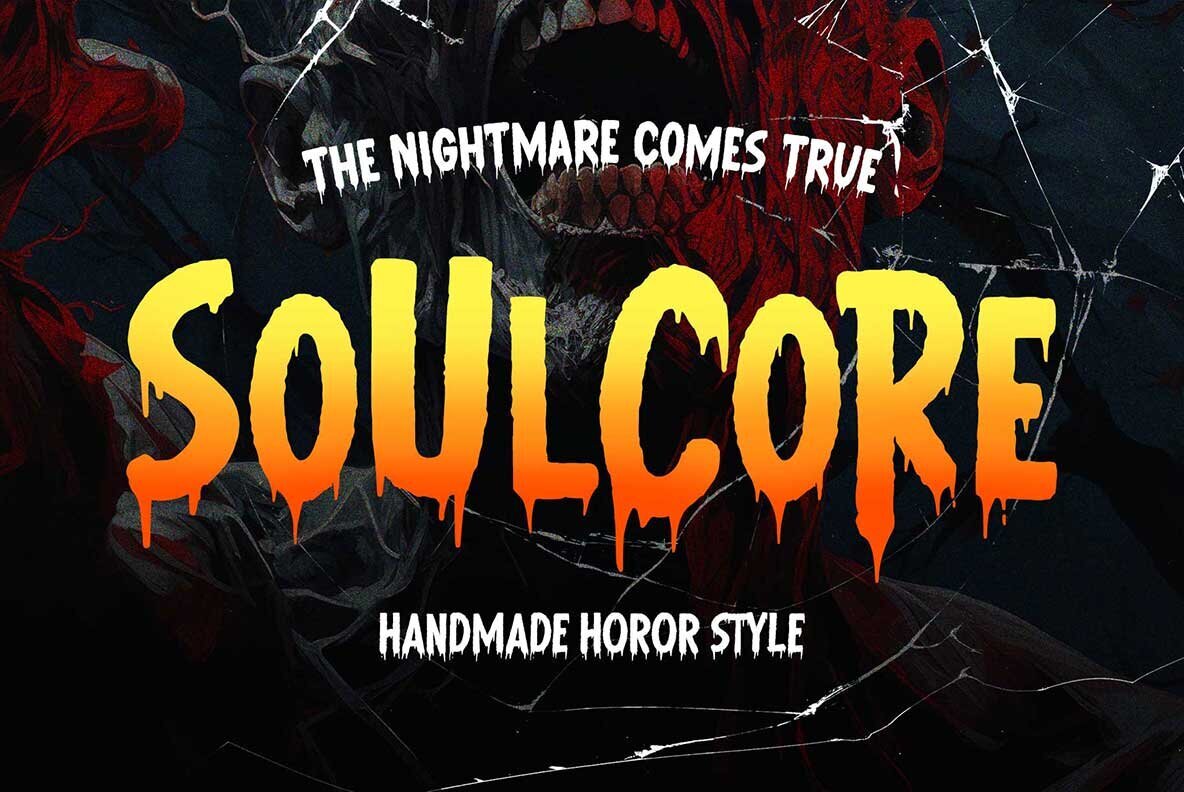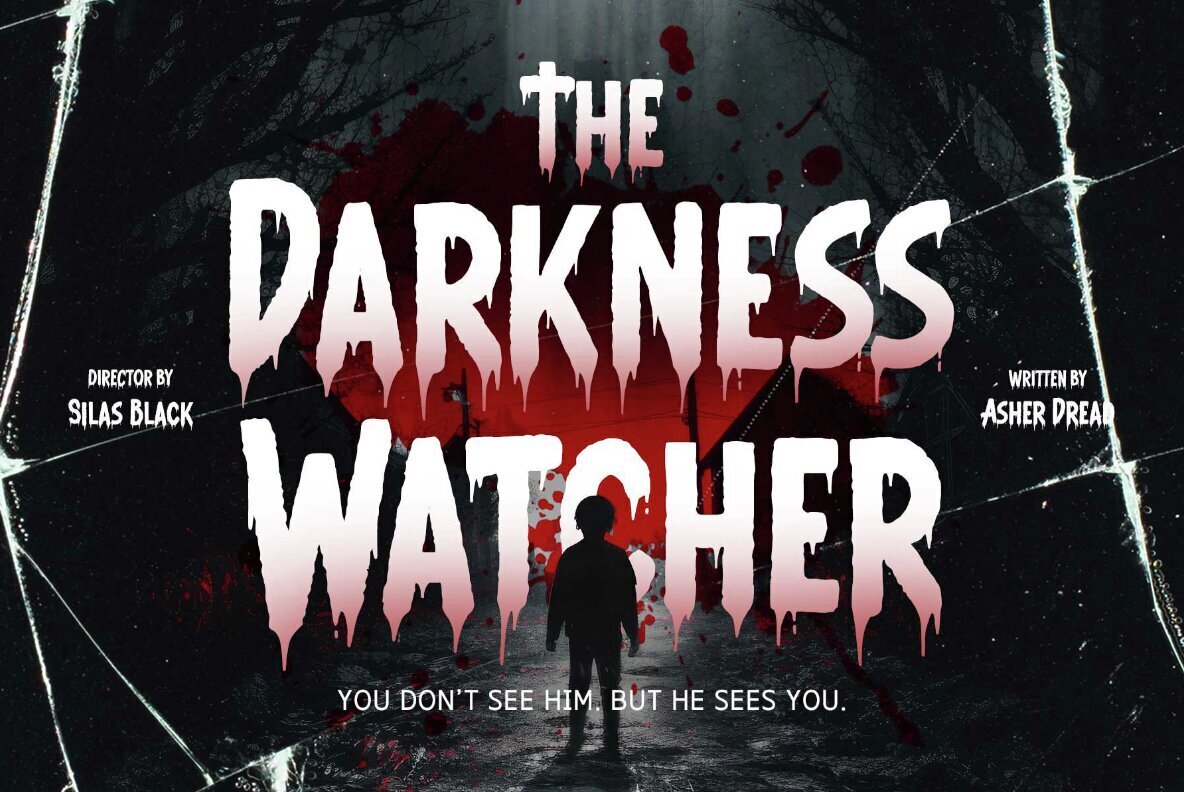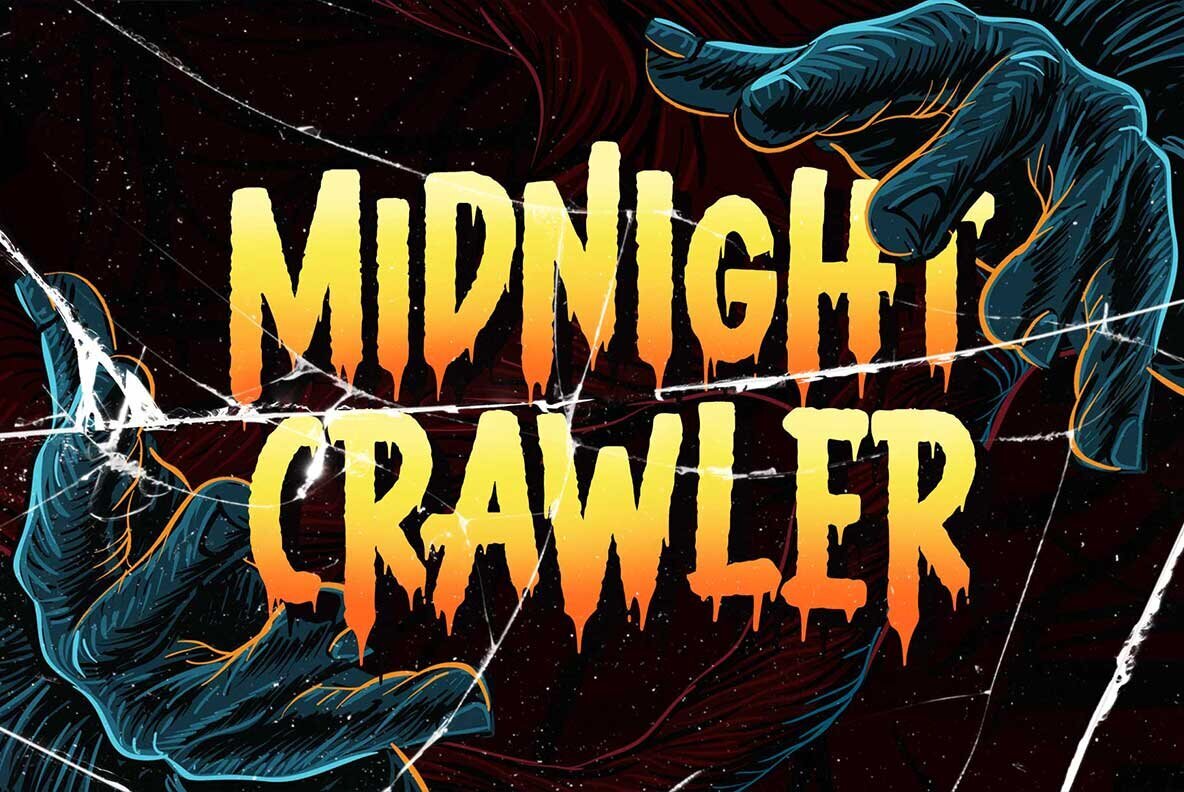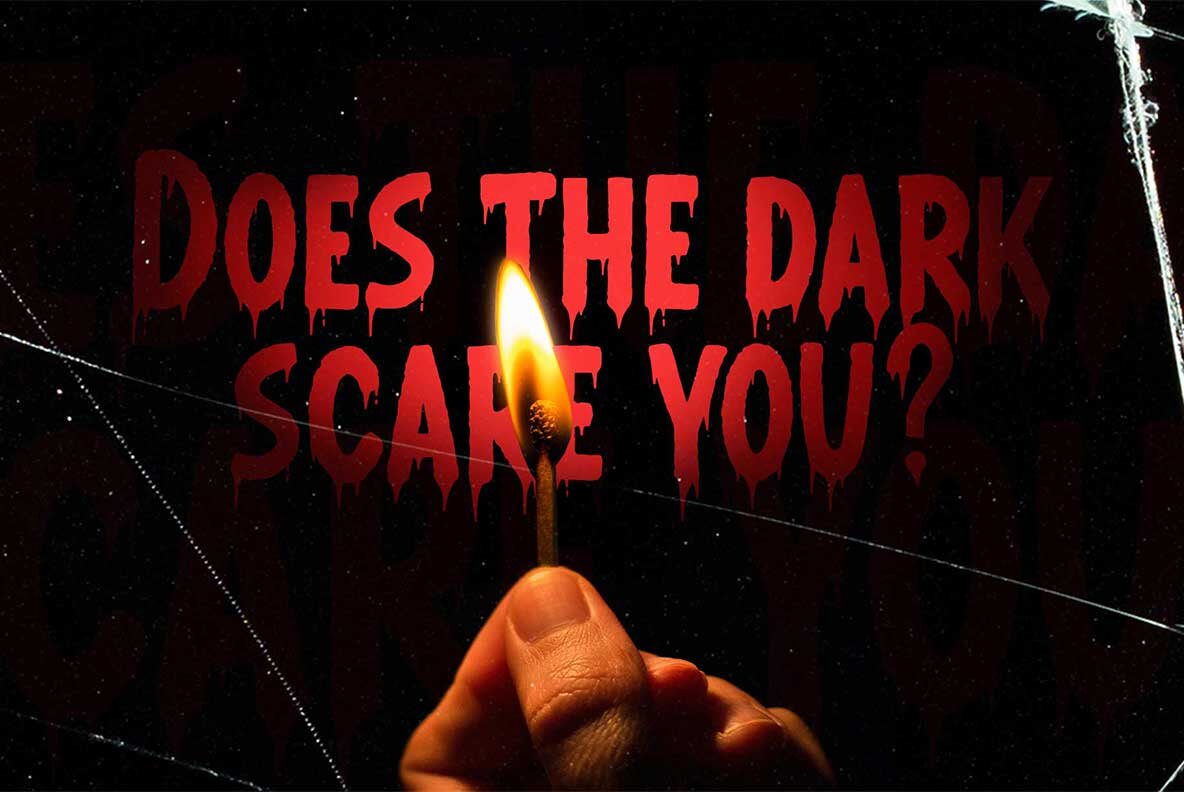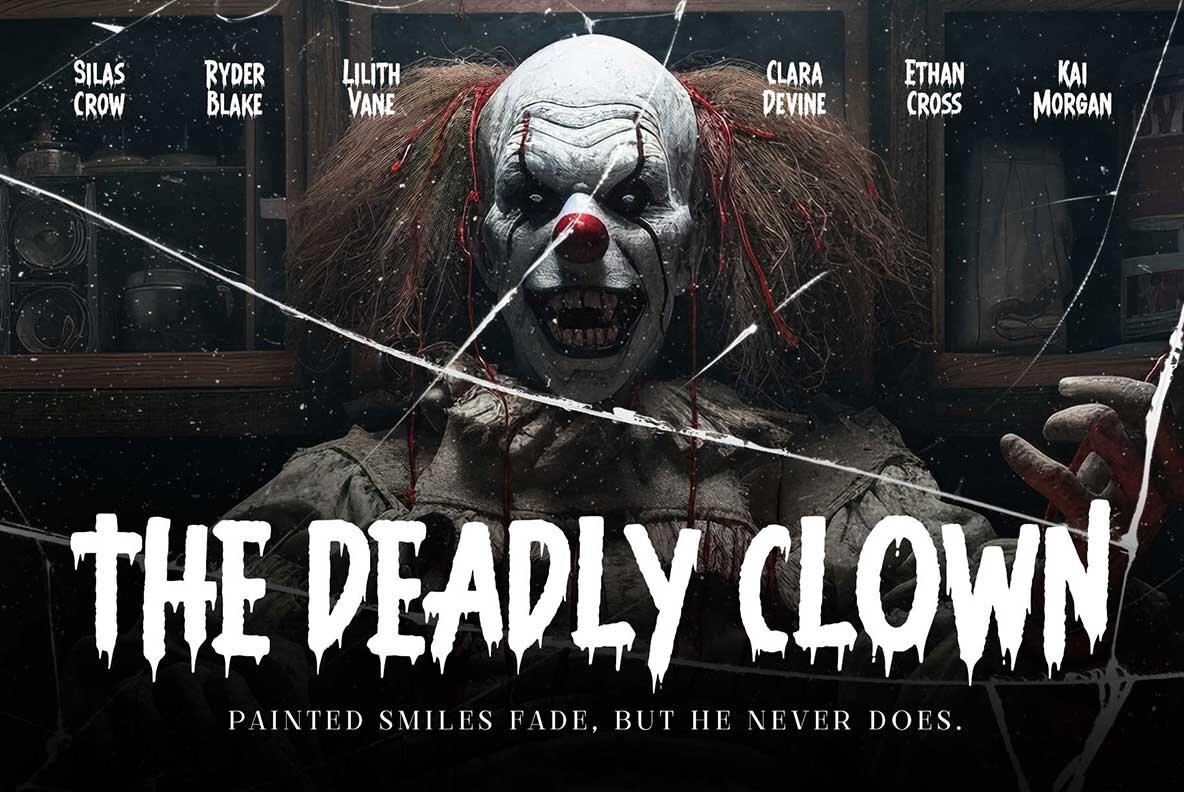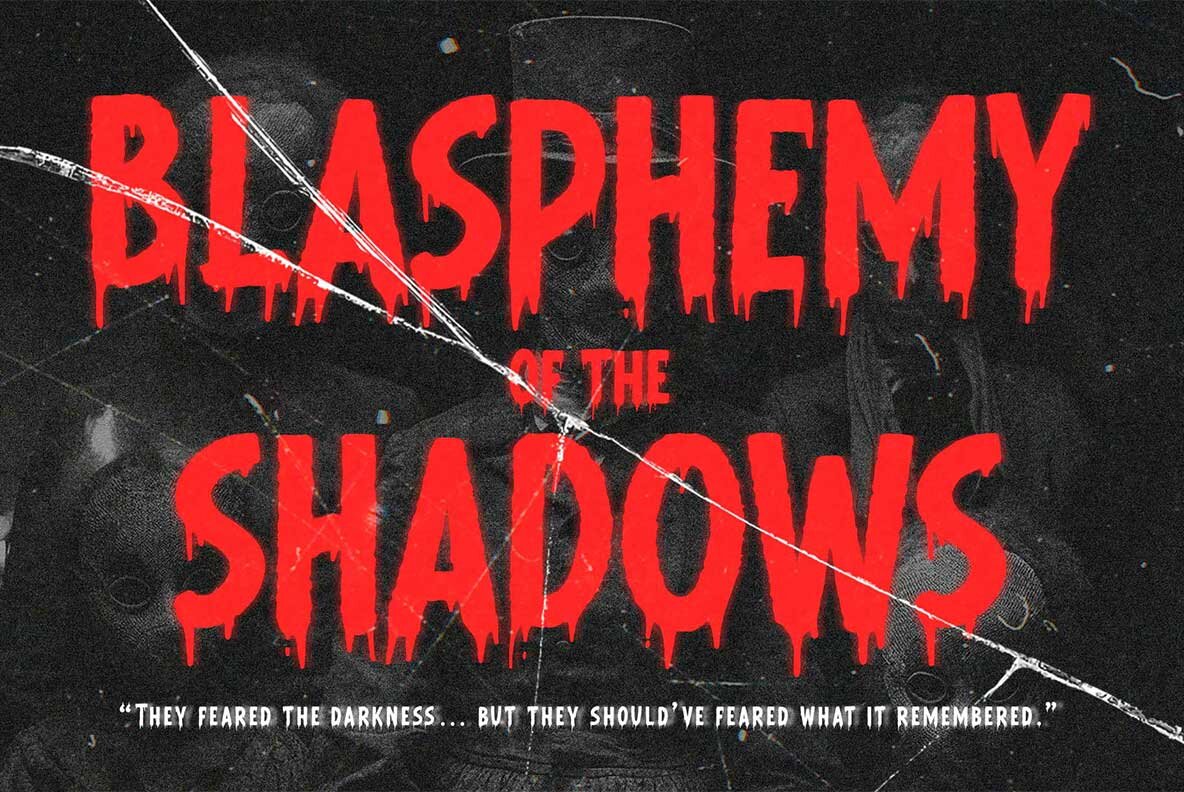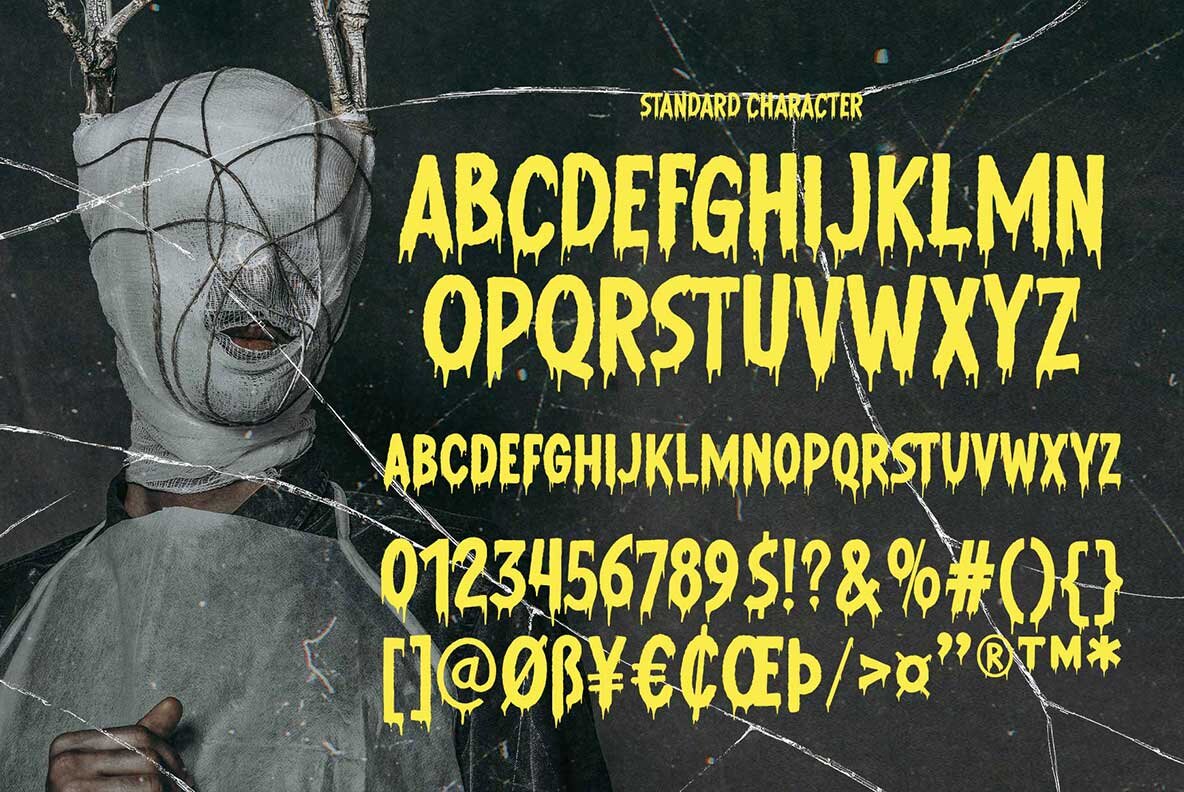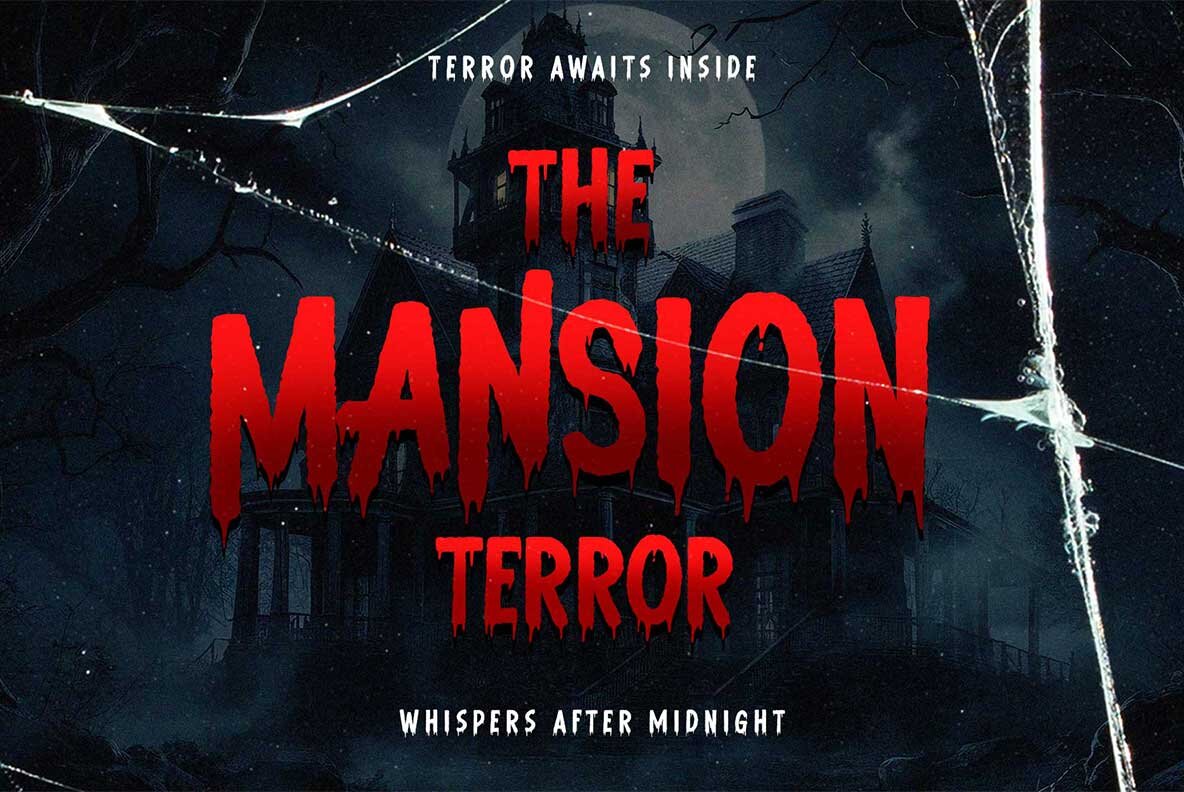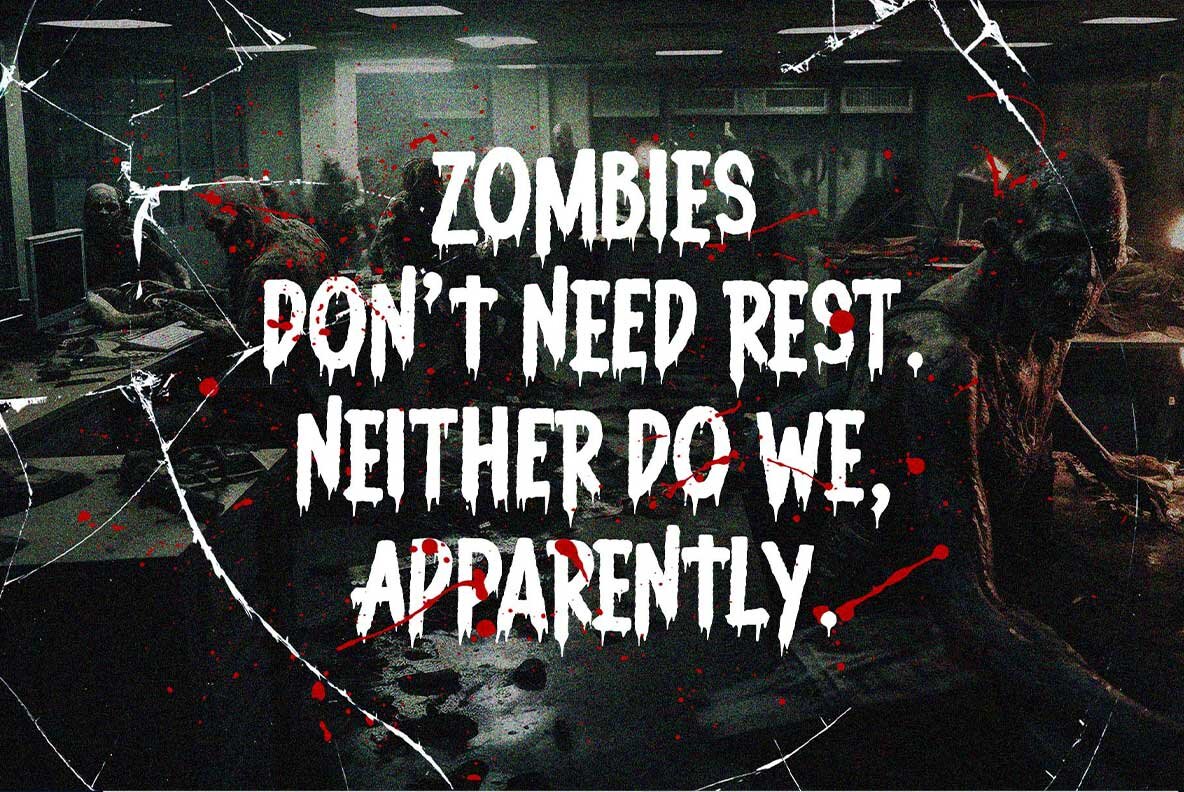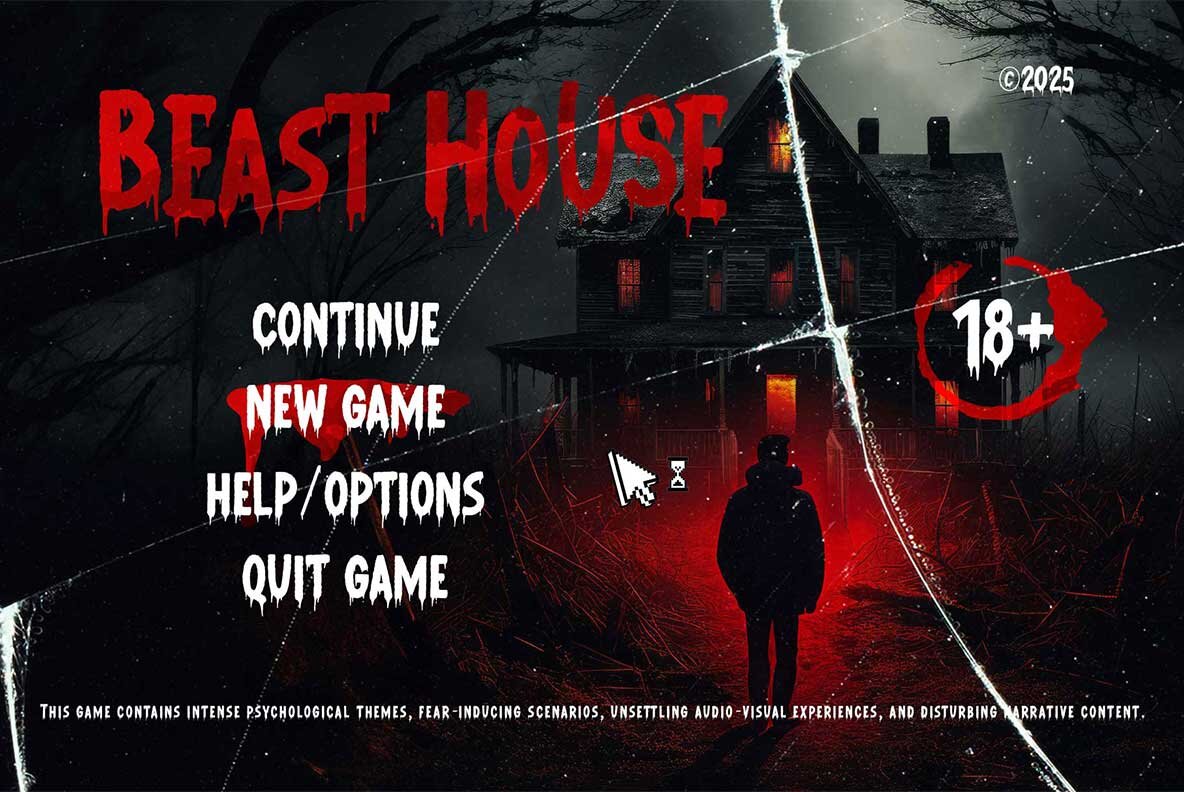
Soulcore Horror Font
Soulcore Regular
Step into the realm of the eerie with Soulcore—a display font that haunts your senses and awakens your creativity. Designed for the bold and fearless, Soulcore captivates with its jagged strokes and distorted forms, oozing with intensity and chaos. This typeface masterfully combines unease and suspense, making it ideal for all your horror-inspired designs. Infuse your project with Soulcore, where each letter speaks volumes of tension. Dare to stand out with a typeface that's anything but ordinary, ensuring your designs will be remembered and revered.Soulcore Horror Typeface: A Spine-Chilling Creation
A Typeface for the Brave